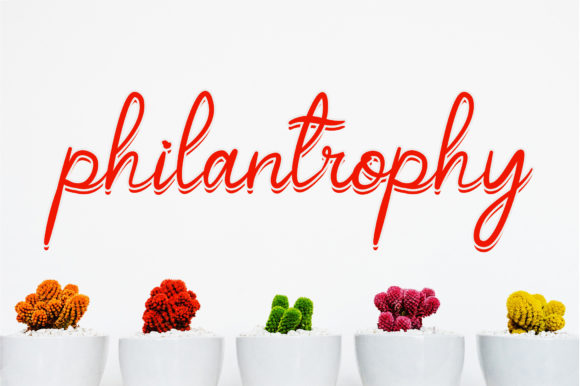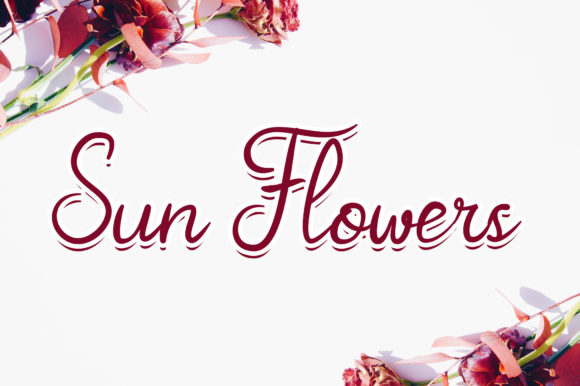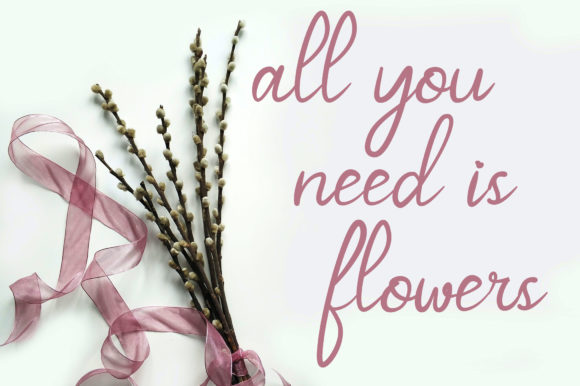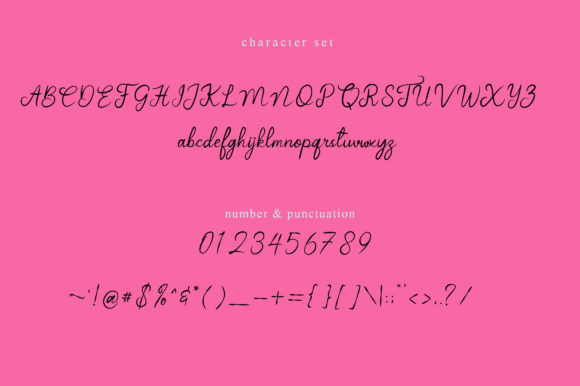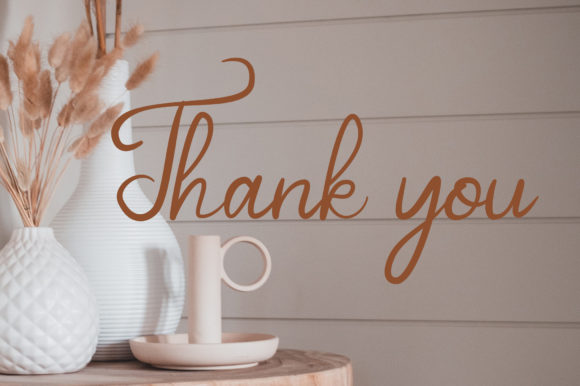
Sublimation Font
About Sublimation Font
Sublimation is a fancy and flowing handwritten font. Its distinct and well-balanced letters make this font a masterpiece. Every letter has a unique and beautiful touch, which will make your design come alive!